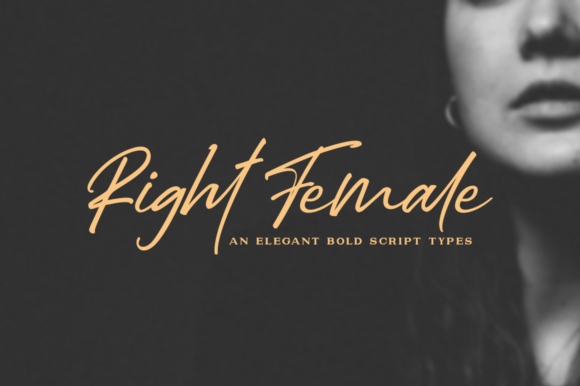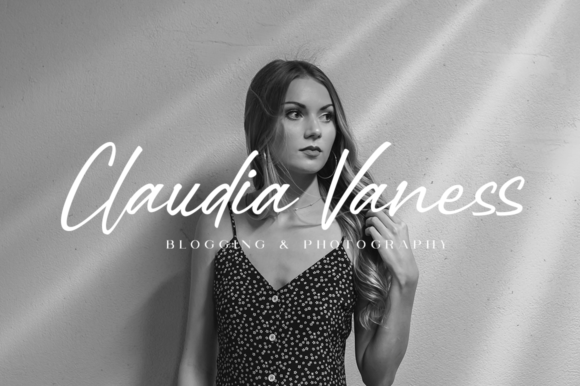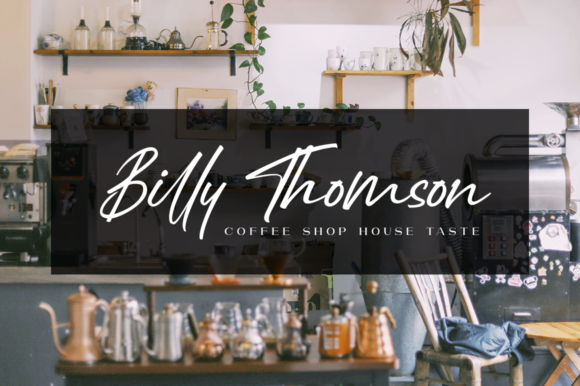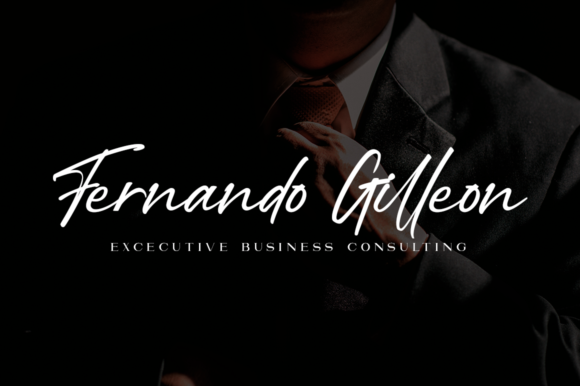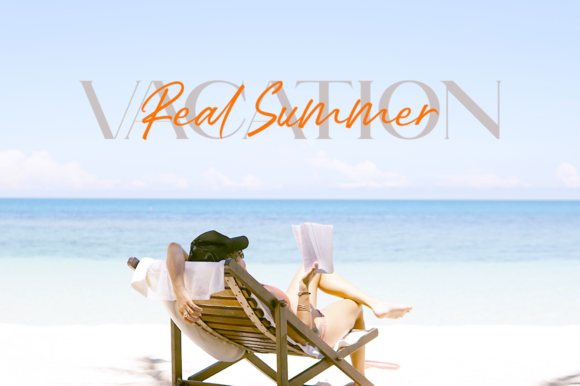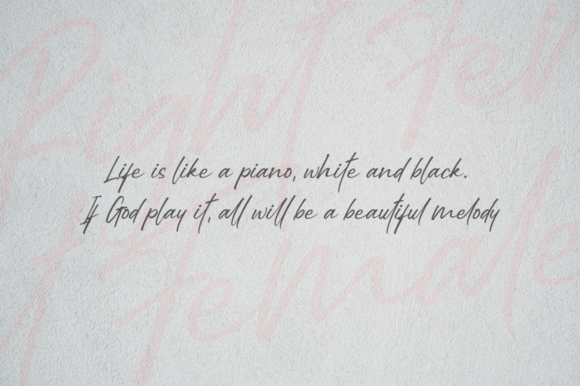
Right Female Font
About Right Female Font
Right Female is a cool, bold and elegant handwritten font with an authentic vibe. Use it to turn any design project into a true standout!